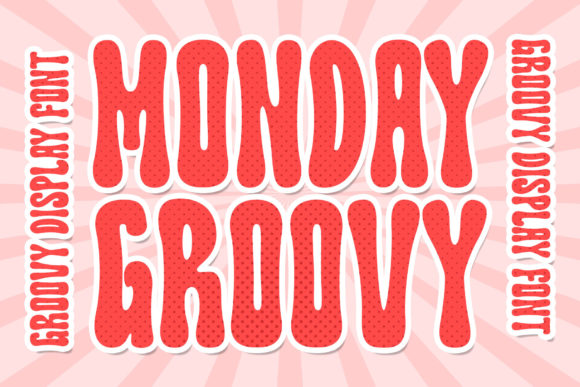
Introducing Monday Groovy Font, a captivating and versatile display font designed by Hoperative Design. Are you in search of the best fonts for books in 2015? Look no further! Monday Groovy Font is here to elevate your creative projects to new heights.
With its all caps characters and symbols, Monday Groovy Font exudes a groovy and retro vibe that will leave a lasting impression on your audience. But this font offers much more than just style. It is packed with features that make it a must-have for any creative endeavor.
One of the standout features of Monday Groovy Font is its PUA encoding. This means that you can easily access all of the glyphs and swashes, allowing you to unleash your creativity without any limitations. Whether you're designing t-shirts, stickers, book covers, or social media posts, Monday Groovy Font has got you covered.
Imagine the possibilities with this font. You can effortlessly create eye-catching book covers that will entice readers to pick up your work. Children's books come alive with the playful and vibrant characters that Monday Groovy Font offers. Social media posts will stand out in a sea of mediocrity, grabbing the attention of your followers.
But it doesn't stop there. Monday Groovy Font is also perfect for invitations, adding a touch of uniqueness and elegance to your special events. Its versatility knows no bounds, making it a valuable asset for any creative project you embark on.
Don't settle for ordinary fonts when you can have the extraordinary with Monday Groovy Font. Let your imagination run wild and create stunning visuals that leave a lasting impression. Download Monday Groovy Font now and experience the power of a font that truly stands out from the crowd.
Transform your designs with the captivating and versatile Monday Groovy Font. Unleash your creativity and make a statement that will leave a lasting impression. Get ready to take your projects to the next level with this must-have font. Download now and let the magic begin!